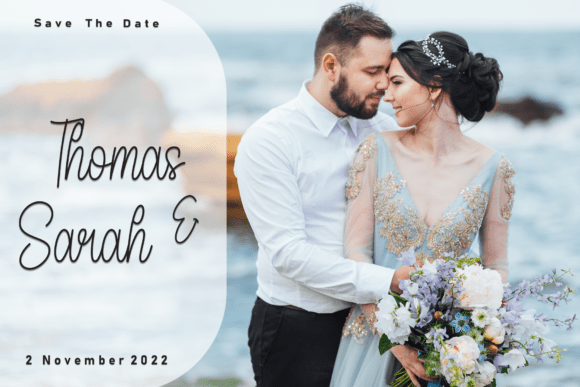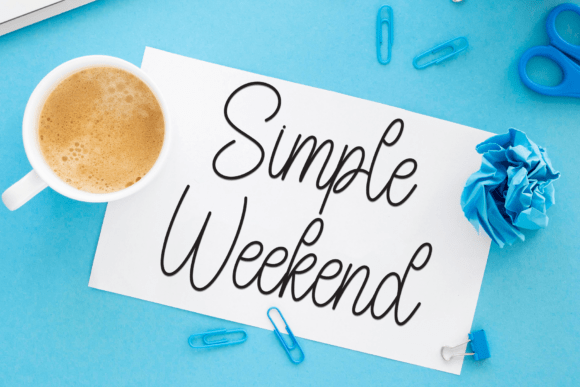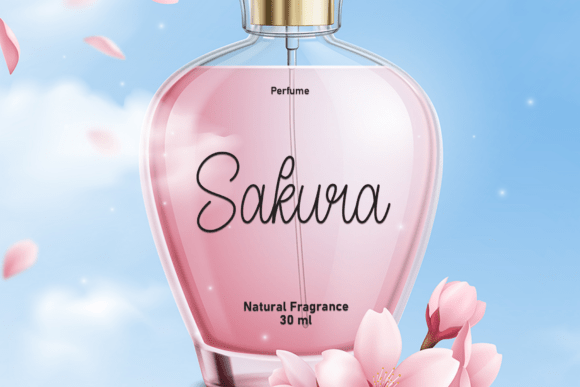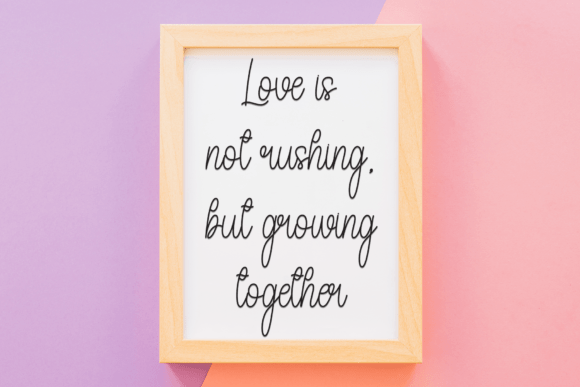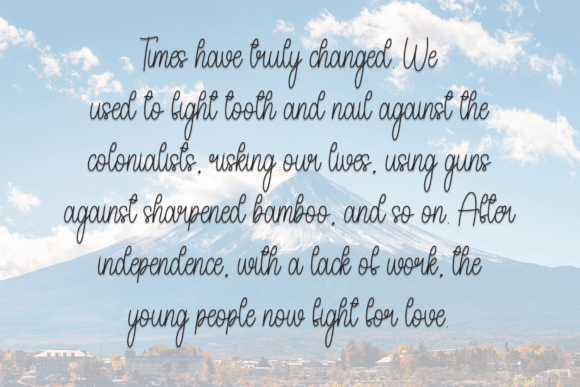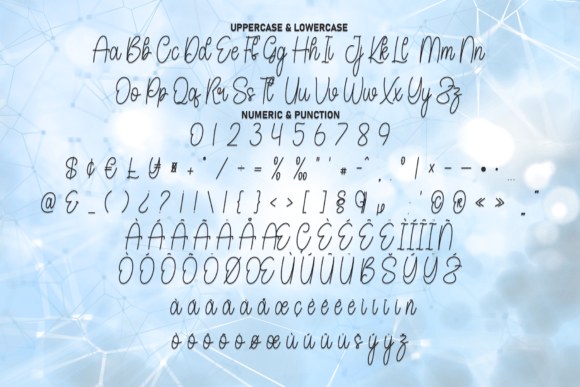
Step into an enchanting, expressive realm with our captivating handwritten display font, overflowing with an alluring appeal and a full-bodied character. This font comes alive with an intoxicating allure, crafting a mesmerizing balance, ideal for the creation of marvelously styled wedding invites, endearing greeting cards, delightful gift tags, and beyond. Imbue your designs with its enchanting touch.
Introducing Our Captivating Handwritten Display Font
Our enchanting handwritten display font is designed to instill a spellbinding, engaging tone in every design initiative. With its full-bodied character and intoxicating allure, this font serves as an unparalleled solution to architect unforgettably striking and attention-grabbing design experiences. Whether you’re a designer, crafter, or DIY enthusiast, this font is perfect for creating:
- Marvelously styled wedding invites that set the tone for a dreamy celebration
- Endearing greeting cards that convey heartfelt emotions
- Delightful gift tags that add a personal touch to presents
- And many more design projects that require a touch of elegance and whimsy